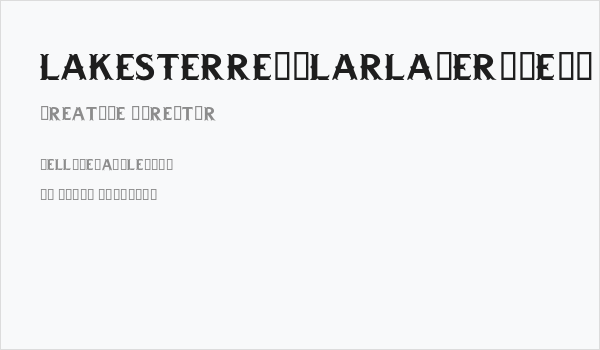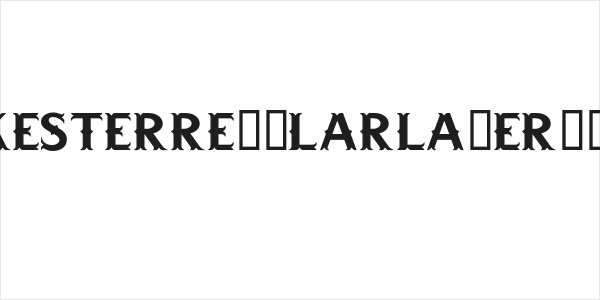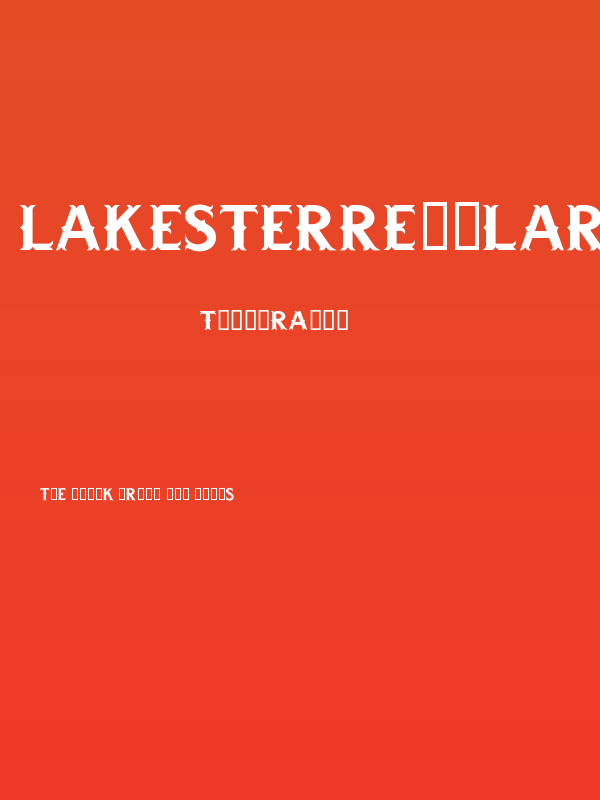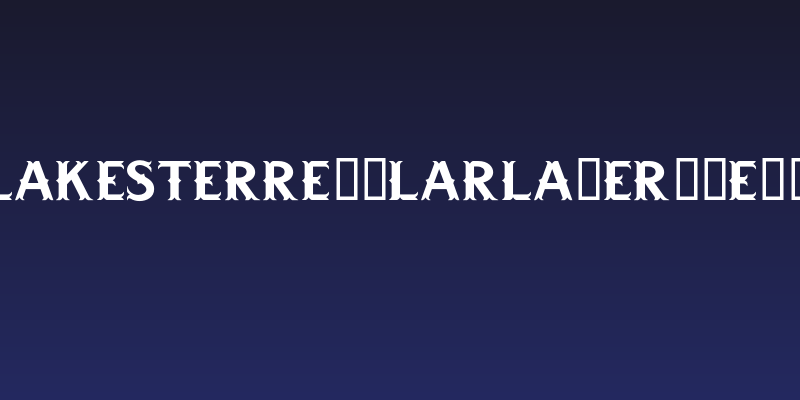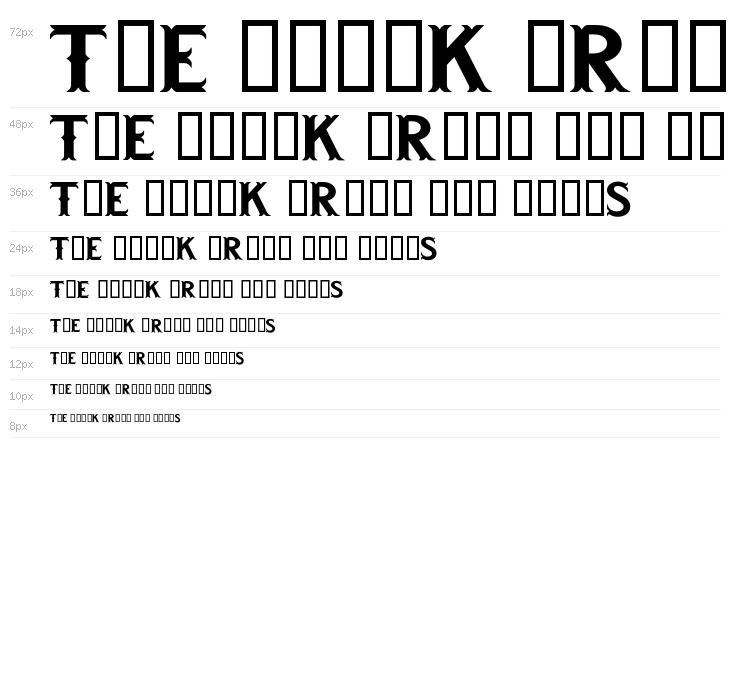
LAKESTERREGULARLAYER1DEMO Font
This font features a bold and striking design with sharp, angular serifs that give it a distinctive and commanding presence. The characters are well-defined with a strong emphasis on vertical lines, creating a sense of stability and strength. The uppercase letters are particularly prominent, with a slightly condensed appearance that enhances their boldness. The lowercase letters maintain the same stylistic elements, ensuring consistency throughout the typeface. The overall design is reminiscent of vintage or classic styles, making it suitable for projects that require a touch of elegance and authority.
Overall StyleVintage
Proposed ProjectsIdeal for branding, headlines, posters, and any design requiring a classic and authoritative look.